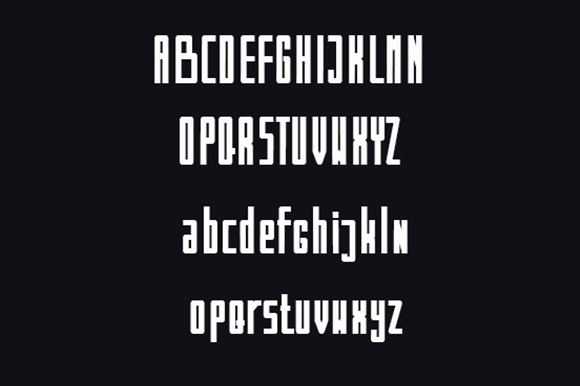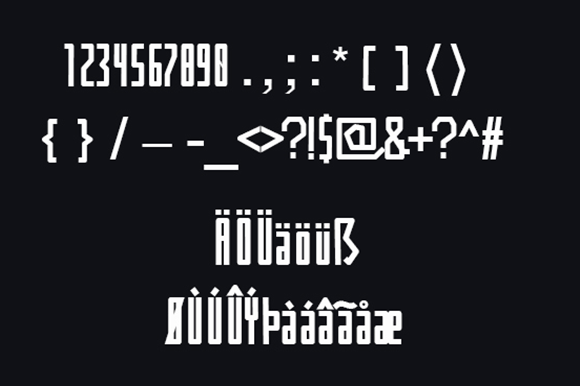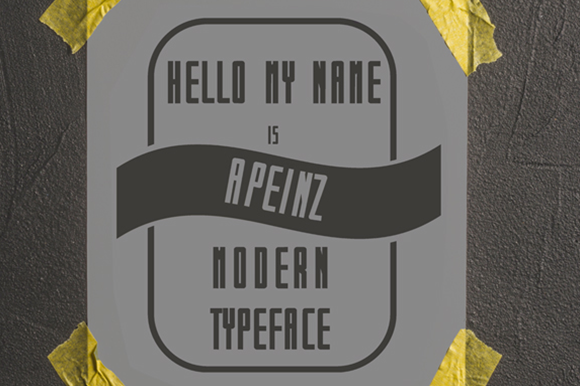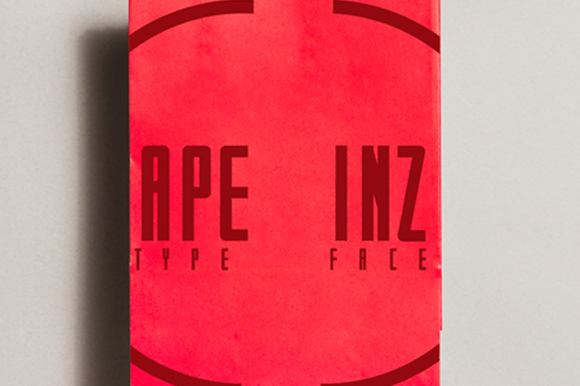
A Fresh Twist for Your Creative Projects: Apeinz Font
Have you ever been brainstorming ideas for a new project, only to feel like something’s missing? Maybe it’s the perfect phrase, the right color scheme, or the ideal font. For designers, finding that elusive spark can be the difference between an okay project and a truly unforgettable one. And that’s where Apeinz Font comes in – a simple yet stylish lettered display font that’s guaranteed to elevate your creative endeavors.
Apeinz Font is designed to add a touch of elegance and sophistication to any project, from logos and advertisements to social media graphics and blog posts. Its clean lines and modern aesthetic make it the perfect addition to any design, and its versatility means it can be used in a wide range of contexts.
Apeinz Font Key Features
- Font Family: Apeinz Font is a sans-serif font family designed for modern and clean typography.
- Character Set: Supports a wide range of languages, including Latin, Cyrillic, and Greek alphabets, making it suitable for international typography.
- Unique Characteristics: Features a unique blend of modern and minimalist design elements, with subtle rounded edges and clean lines, making it ideal for modern branding and digital design projects.
Apeinz Font Review
I recently had the chance to work with the Apeinz font, and overall, I have mixed feelings about it. There are some aspects where it shines, but there are also some limitations that might make it less desirable for certain projects.
- The font has a unique, modern look that can add a touch of sophistication to designs.
- The font family is quite extensive, with a variety of weights and styles to choose from.
- It’s highly legible, even at smaller font sizes, making it suitable for body text.
- The font might not be suitable for projects that require a more classic or traditional look.
- The font’s unique style can be a bit too bold or overwhelming in certain contexts.
- It might not be as versatile as other fonts when it comes to pairing with other typography elements.
The Apeinz font is a solid choice for modern designs, but it may not be the best fit for every project. It’s a good option for designers who want to add a touch of modernity and sophistication to their work, but it’s not suitable for every style or aesthetic.
Getting the Most Out of Apeinz Font
To get the most out of Apeinz Font, try the following tips:
- Use the font in combination with bold or italic styles to add emphasis.
- Use the font in headings and subheadings to create a clear hierarchy of information.
Apeinz Font is suitable for a variety of applications, including:
- Brand identities
Alternatives to Apeinz Font for Designers
Playfair Display is an elegant, high-end font suitable for formal invitations, luxury branding, and high-end publications. It features intricate flourishes and luxurious details, making it perfect for designers who want to add sophistication to their work.
Compared to Apeinz Font, Playfair Display has a more formal and luxurious feel, making it ideal for high-end projects. While Apeinz Font has a unique, hand-drawn feel, Playfair Display is more refined and polished.
Great Vibes is a modern, script font that works well for branding, signage, and creative projects. It features a relaxed, handwritten feel that adds a touch of personality to designs.
Compared to Apeinz Font, Great Vibes has a more casual and relaxed feel, making it perfect for designers who want to add a friendly and approachable tone to their work. While Apeinz Font has a unique, hand-drawn feel, Great Vibes is more modern and versatile.